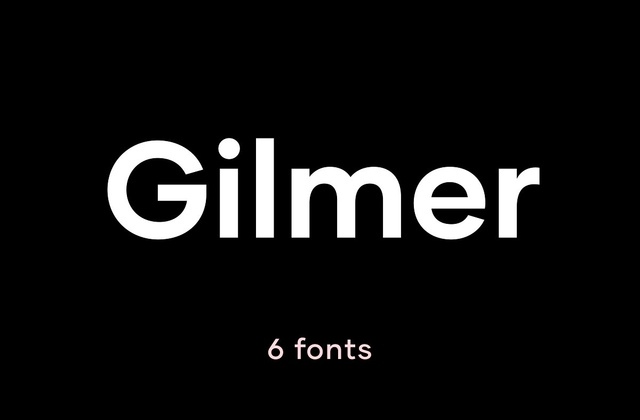
Gilmer – Geometric Sans Serif Font
Gilmer – Geometric Sans Serif Font is perfect for modern tech branding, architectural firm communications, contemporary art galleries, minimalist product packaging, progressive web design, and clean corporate identities. This sophisticated typeface excels in design studios, innovation centers, modern museums, and any application where geometric precision and mathematical harmony create striking visual clarity and contemporary appeal.
What makes Gilmer – Geometric Sans Serif Font so exciting is its masterful execution of pure geometric principles that creates letterforms of exceptional clarity and visual balance. The font features perfectly crafted circles, precise angles, and mathematical proportions that reflect the beauty of geometric design while maintaining optimal readability. Its clean architecture embodies the principles of modernist design, making it ideal for brands that value precision, clarity, and progressive thinking.
Gilmer – Geometric Sans Serif Font comes in a precise family including Thin, Light, Regular, Medium, Bold, and Black weights. Each style features complete uppercase and lowercase character sets, geometric symbols, mathematical numerals, and architectural punctuation marks. The font family also includes condensed variants, alternate characters, and technical ligatures that provide designers with comprehensive tools for creating sophisticated geometric compositions.
This exceptional typeface transforms communications into celebrations of mathematical beauty and design precision. Gilmer – Geometric Sans Serif Font Free Download offers designers and progressive brands essential typography that reflects their commitment to clarity, innovation, and geometric excellence. Whether you're developing brands for architectural firms, creating materials for design agencies, or building interfaces for tech companies, this font delivers uncompromising geometric purity with contemporary functionality.
The font's geometric character makes it particularly effective for architects, designers, technology companies, and modern cultural institutions. Its superior legibility ensures that Gilmer – Geometric Sans Serif Font performs flawlessly across all applications while maintaining its distinctive mathematical precision. The font's ability to communicate order and progressive thinking makes it an invaluable tool for any project requiring typography that embodies the timeless principles of geometric design and mathematical harmony in contemporary communication.